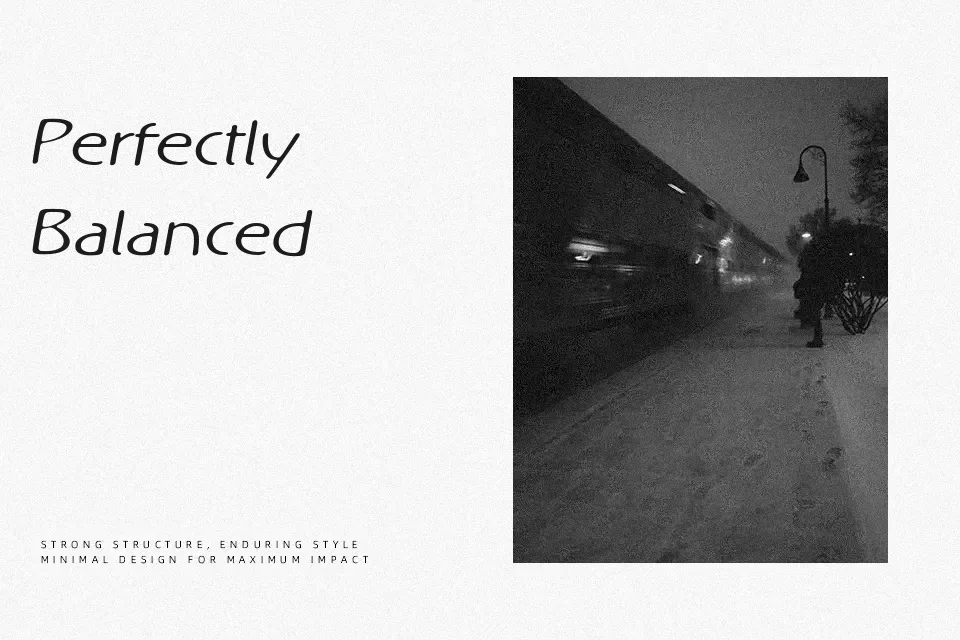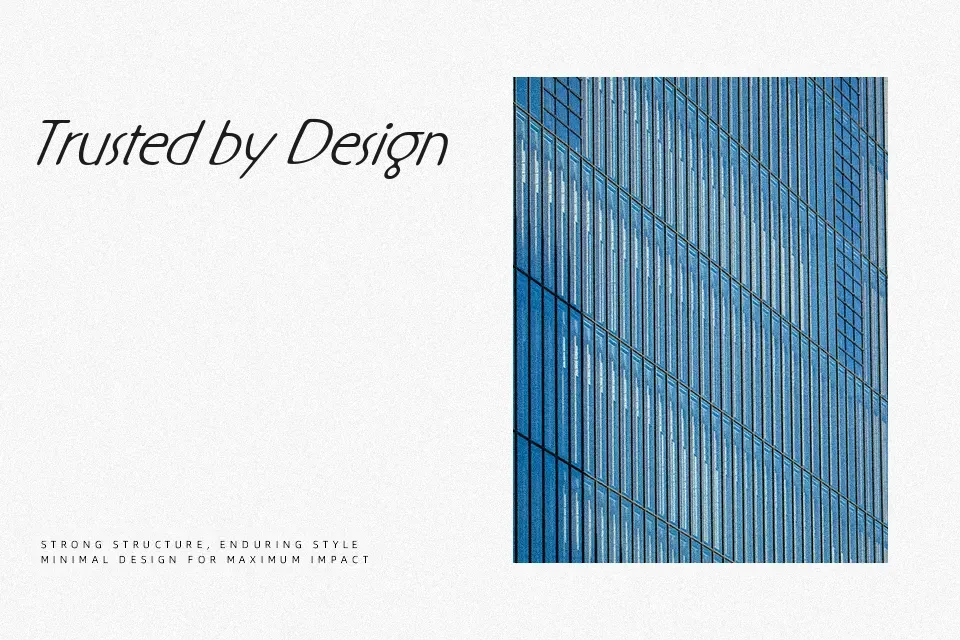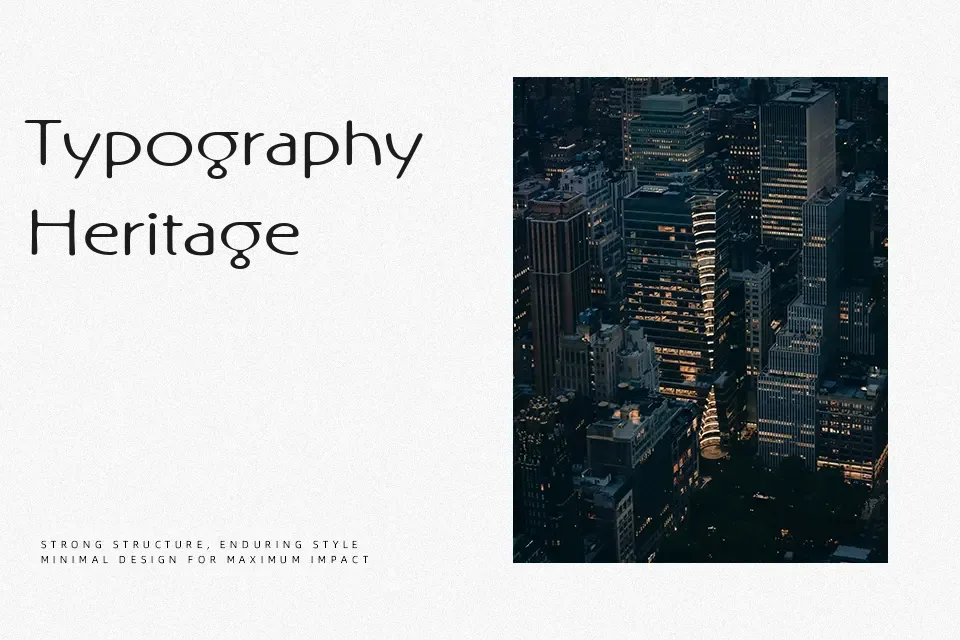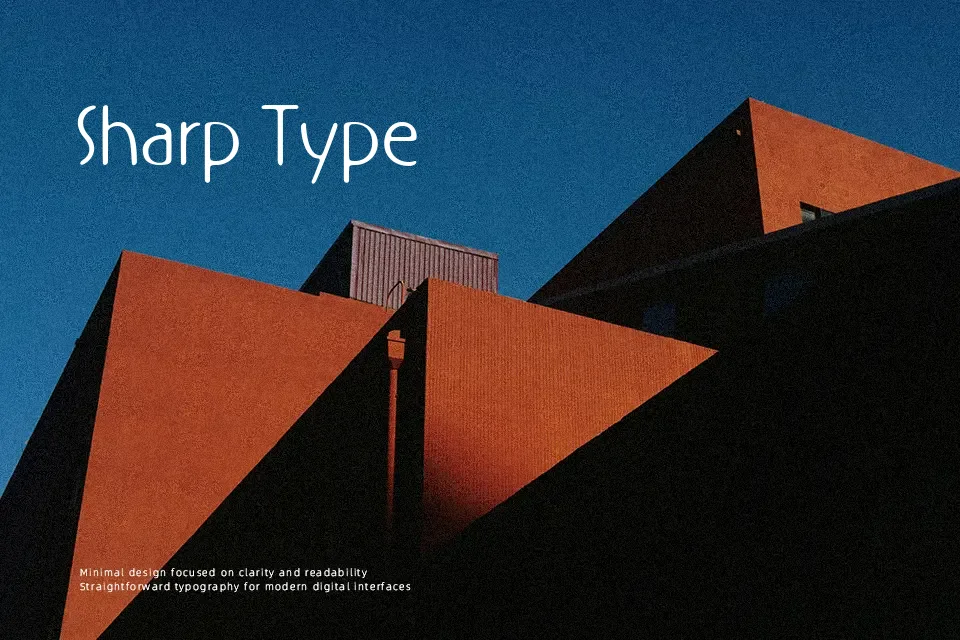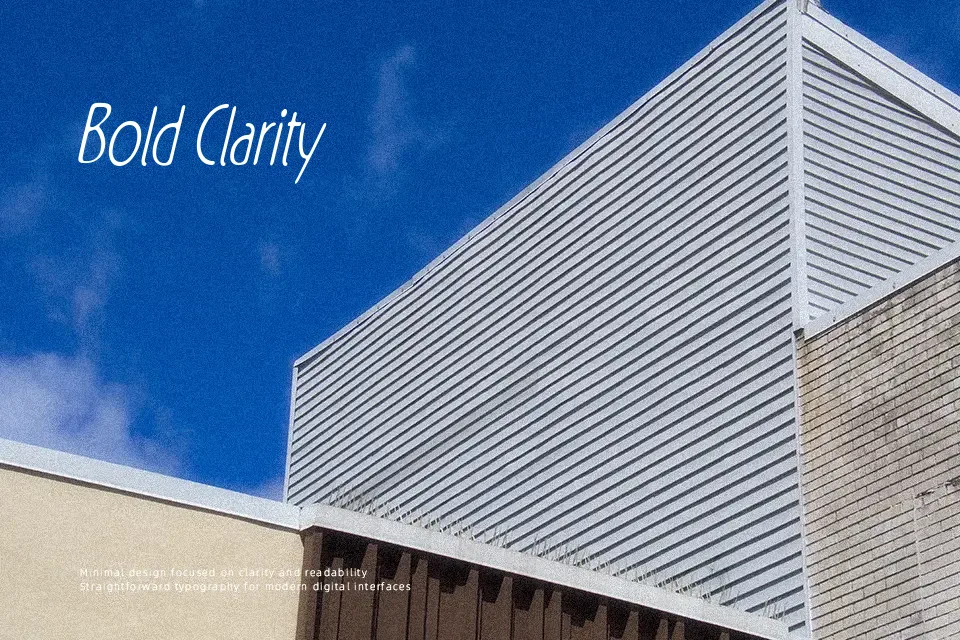
Rx Font
Rx Font relies on a futuristic visual approach that immediately captures attention. The letterforms are built with unique geometric proportions and sharp detailing, creating a dynamic rhythm across short words and display settings. Its varying structural styles allow for high flexibility when crafting tech-inspired headlines or striking visual identities. Dense forms and unconventional shapes reduce comfort during extended reading, making it less suitable for long paragraphs. The spacing helps maintain clarity in larger headlines, ensuring the typeface remains visually dominant in digital applications. This distinct design provides a unique balance of modern expression and typographic weight, thriving in environments that require immediate visual impact.
Best For: esports team logos, music festival posters, website hero headlines, modern streetwear graphics
Not Ideal For: long paragraph text, small interface labels, corporate reports, legal documents
Perfect for branding, gaming, and headline, with a creative and decorative style.